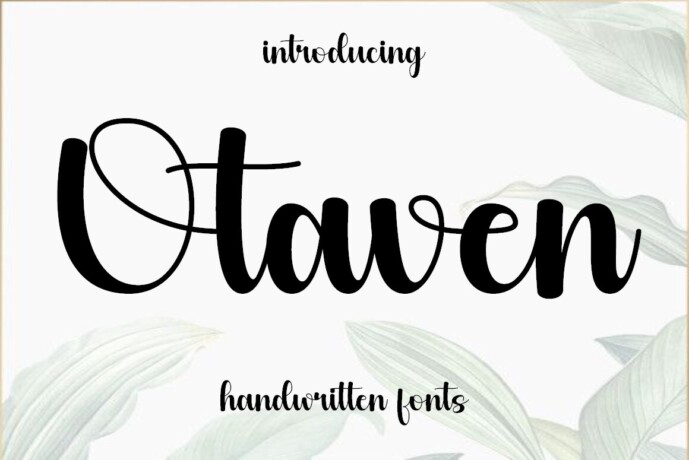
Otaven Font
Otaven is a trendy handwritten font with a contemporary atmosphere and impeccable form, inspired by timeless classic calligraphy. It will add elegance and class to any of your design projects. This font is PUA encoded which means you can access all of the glyphs and alternates with ease!